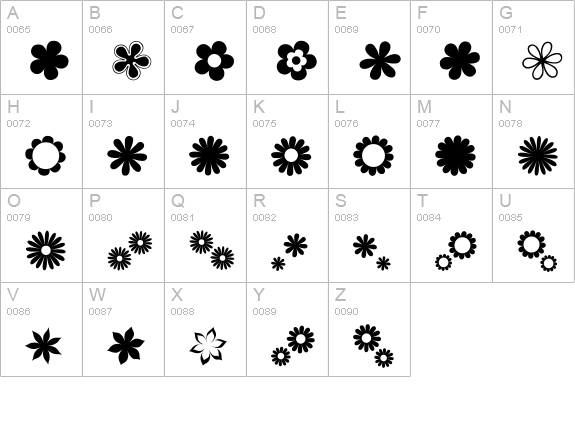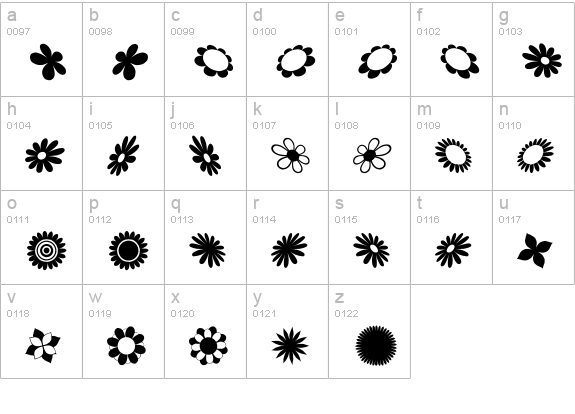
saru's Flower Ding (sRB) Font Details
saru's Flower Ding (sRB) is a whimsical and playful font that adds a touch of delight to any project. With its intricate floral motifs and charming details, this font is perfect for creating eye-catching designs, invitations, and greeting cards. The unique combination of flowers, leaves, and swirls creates a beautiful and organic feel that is both elegant and refreshing. What sets saru's Flower Ding (sRB) apart is that it is not only visually stunning but also available for free. You can easily download this font from FontsMarket.com and use it in your personal or commercial projects without any restrictions. Whether you are a professional designer or a hobbyist, saru's Flower Ding (sRB) offers endless possibilities to bring your ideas to life. This font is versatile and can be used in a variety of contexts. Its intricate curves and delicate details make it ideal for wedding invitations, feminine branding, and nature-themed designs. The floral elements add a touch of elegance and sophistication, making any text stand out in a unique and memorable way. With saru's Flower Ding (sRB), you can easily create stunning typography art, logo designs, or simply add a touch of whimsy to your everyday documents. The font is designed with precision and attention to detail, ensuring that every character is beautifully crafted and visually appealing. Don't miss out on the opportunity to enhance your design projects with the beauty and charm of saru's Flower Ding (sRB). Download it for free at FontsMarket.com and let your creativity bloom!